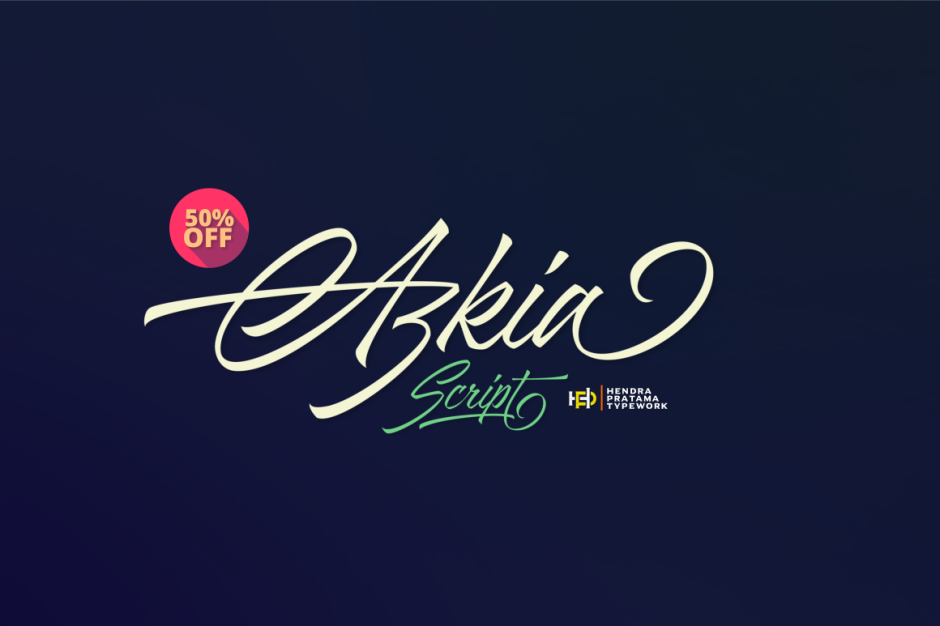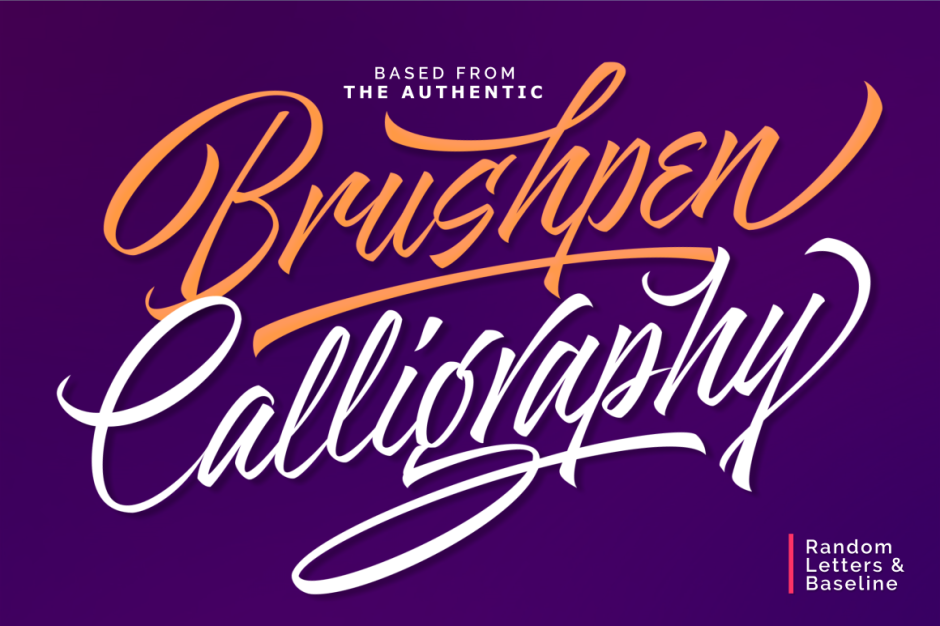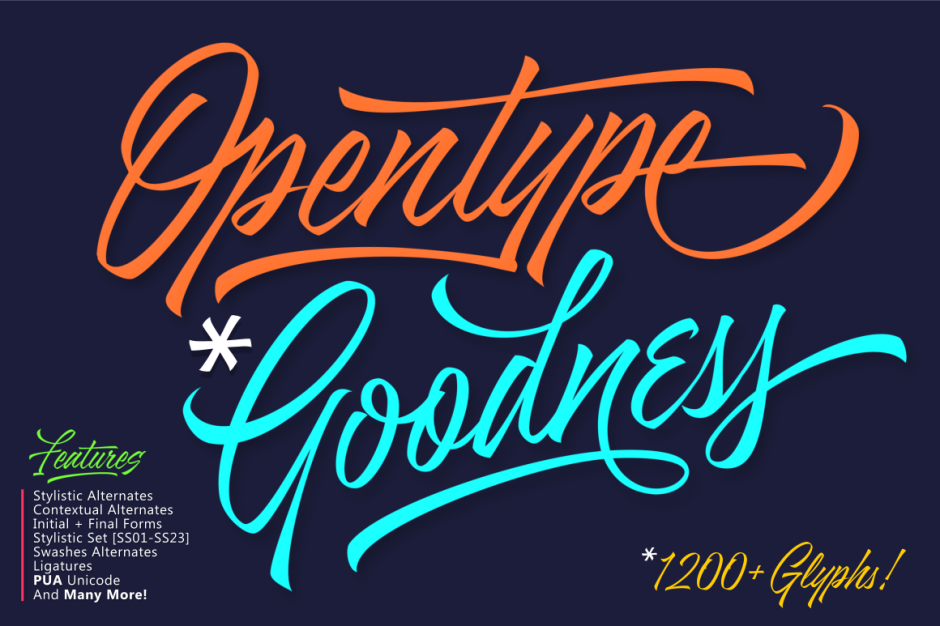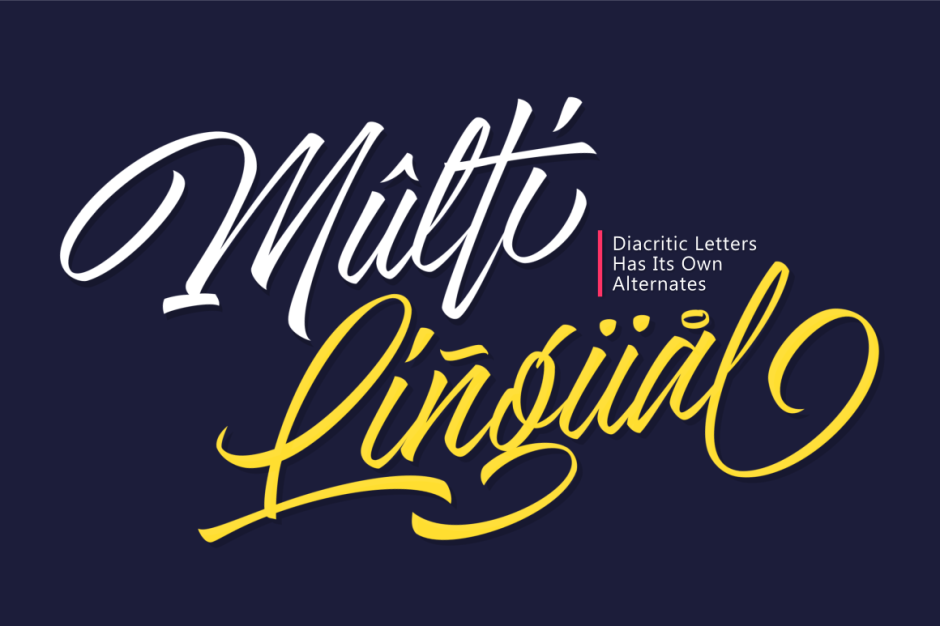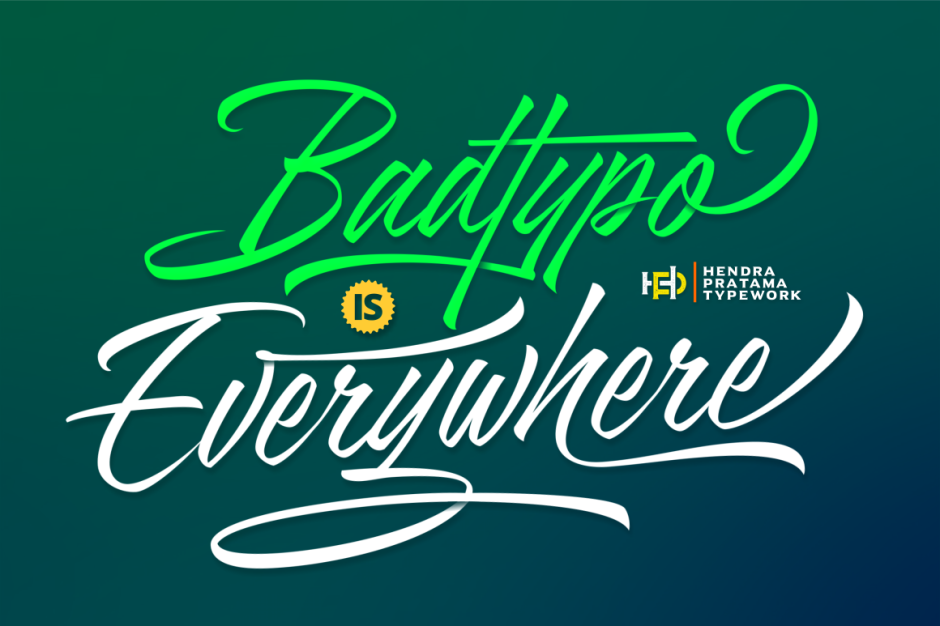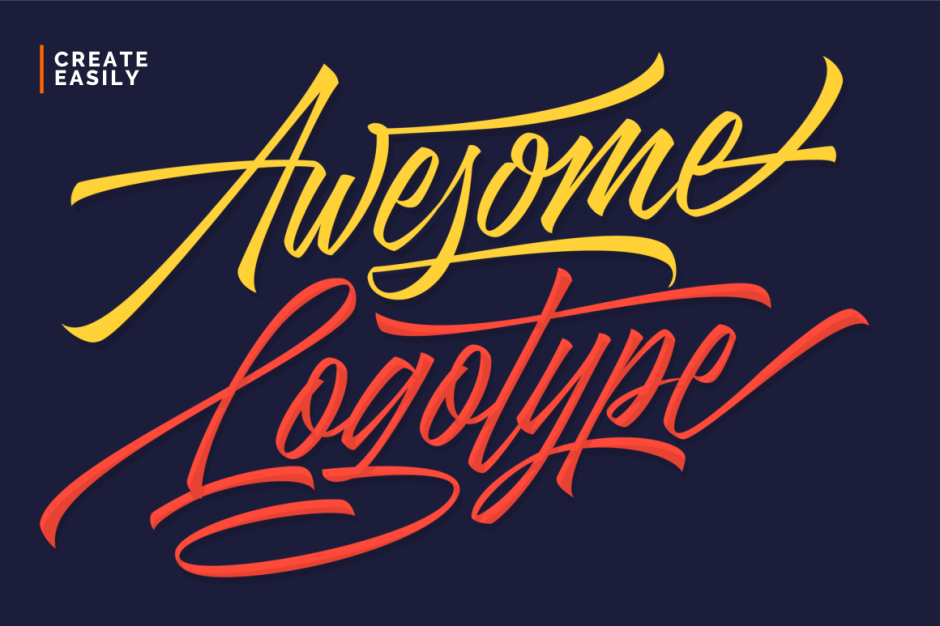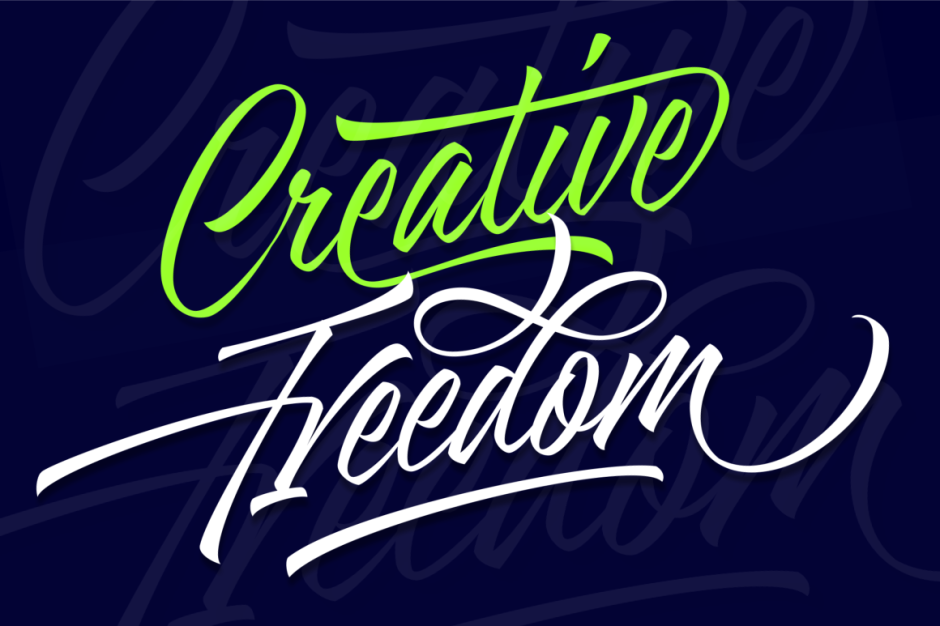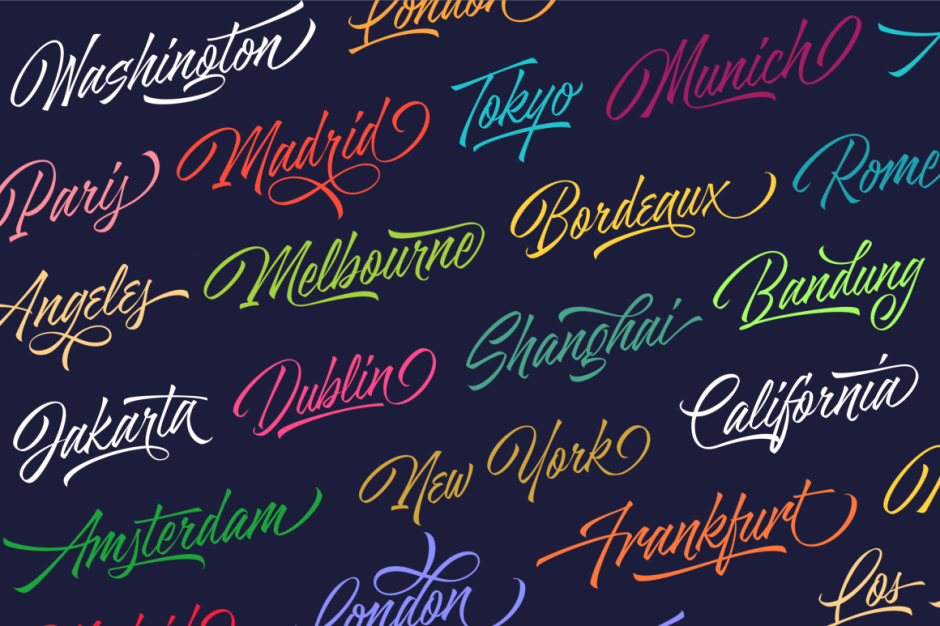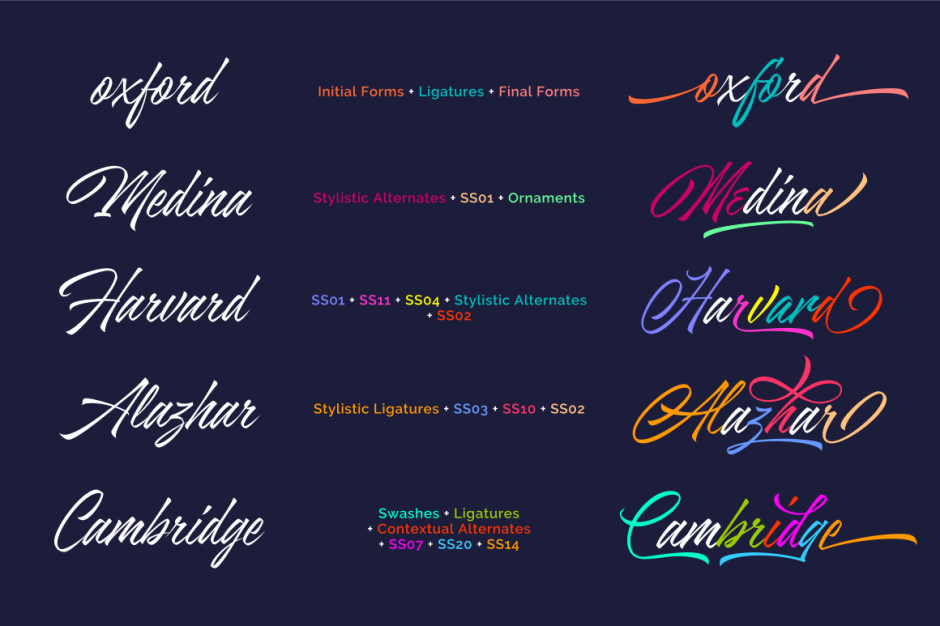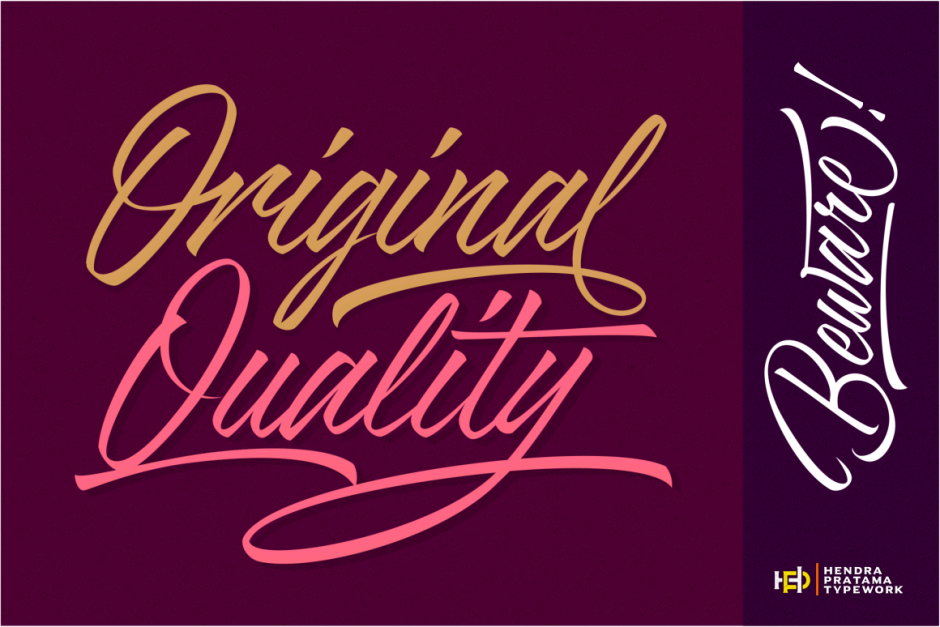
Azkia Script Pro
/ Azkia Script
Azkia Script is a typeface made from many variations of brushpen calligraphy exercises. Rough Sketches on paper and redraw all the letters smoothly in computer. With more than 1200 Glyphs , this font was packed with large OpenType Features Table. The features includes: Stylistic Alternates, Swashes, Ornament, Contextual, Stylistic Set [SS01-SS23] , PUA Unicode and many other alternate character to choose. Please see the preview image for details.
Azkia Script is a useful typeface, digitally crafted with handlettering style. Support over 40 Basic Latin International Languange, even diacritics letters has its own alternates.
Wide range possibilities to create unique typography with this font; Logotype, Book Titles, Poster, or just simple quotes design for t-shirt.
Designer: Hendra Pratama